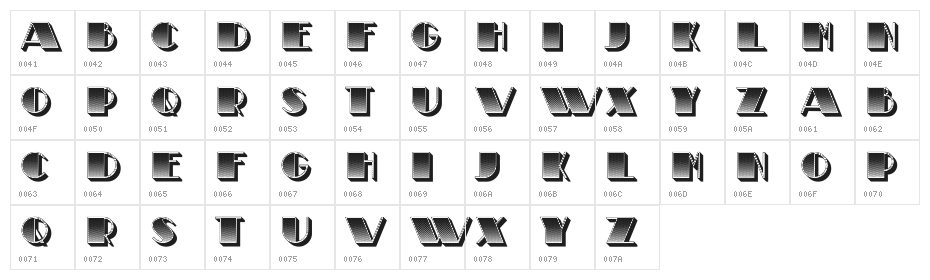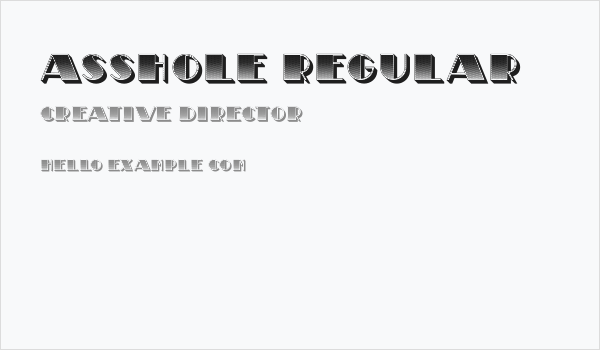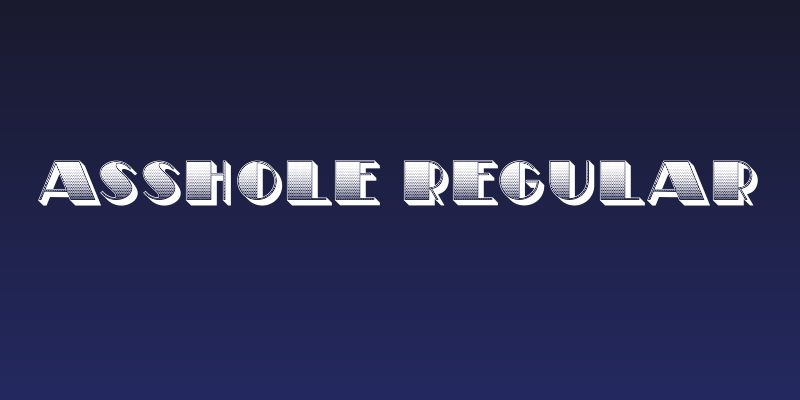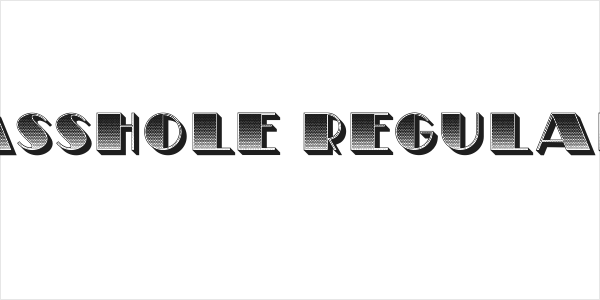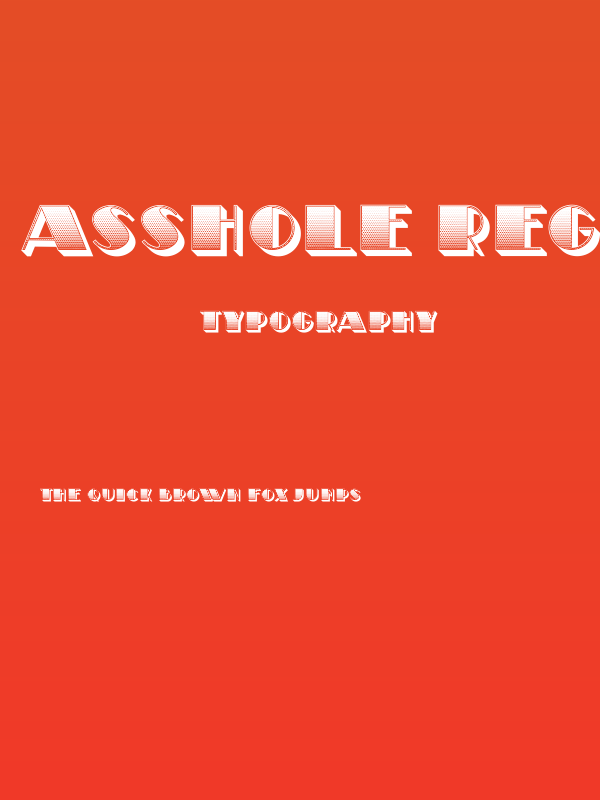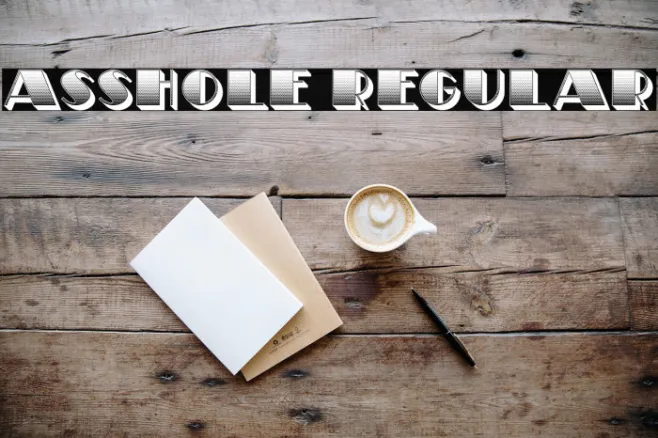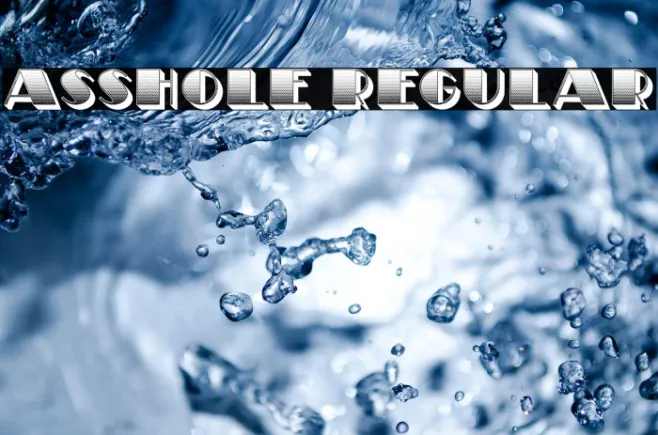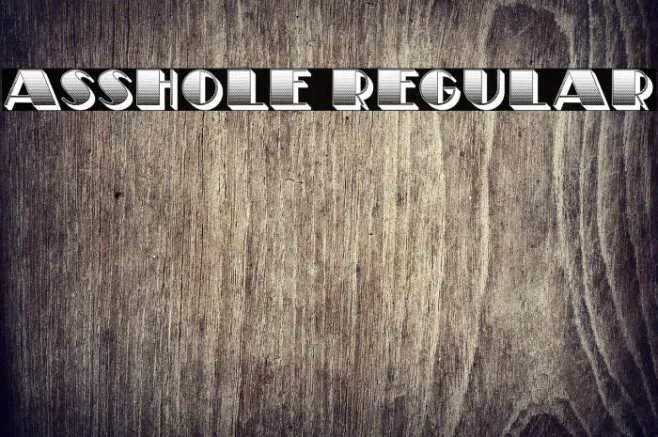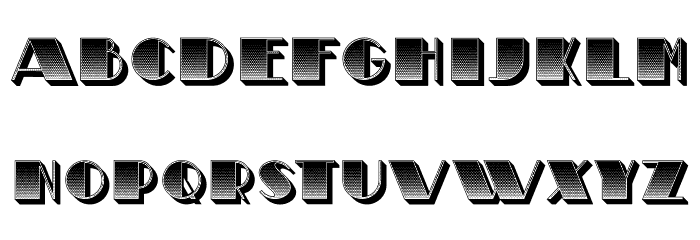
Asshole Regular Font
Asshole Regular Description
This font features a bold, three-dimensional design with a distinct shadow effect that gives it a striking, impactful appearance. The letters are uppercase, with a geometric and angular style that adds a modern and edgy feel. The shadowing creates a sense of depth, making the text stand out prominently. The font's design is consistent across all characters, maintaining a uniform look that enhances its visual appeal. The use of shading and bold lines contributes to a high-contrast appearance, making it suitable for eye-catching displays.
| Proposed Projects | Ideal for posters, headlines, logos, and any design requiring a bold, attention-grabbing font. |